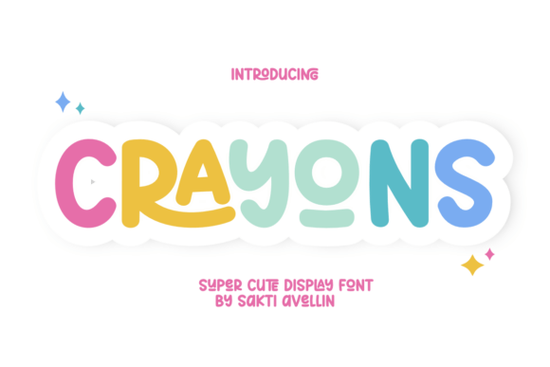
If you’ve ever wanted your designs to feel like they were drawn with a child’s crayon playful, warm, and full of personality the Crayons Font might be exactly what you’re looking for. It captures that nostalgic, hand-scribbled charm without sacrificing readability or versatility. Whether you're making birthday invitations, custom mugs, or printable wall art for a nursery, this font adds a soft, whimsical touch that feels both personal and polished.
Unlike rigid, overly stylized display fonts, Crayons strikes a balance between character and clarity. Its uneven strokes and subtle texture mimic real crayon marks on paper, giving your projects an organic, handmade vibe. That makes it especially useful for designers and small business owners creating products that need to feel approachable think baby shower decor, classroom printables, or cozy home goods like throw pillows and tote bags.
What kinds of projects work best with the Crayons Font?
This font shines in contexts where warmth and friendliness matter more than formality. Here are a few natural fits:
- Greeting cards and invitations – Especially for birthdays, baby showers, or casual celebrations.
- Print-on-demand merchandise – T-shirts, mugs, and keychains with uplifting quotes or simple illustrations pair beautifully with this style.
- Children’s room decor – Wall art, growth charts, or personalized name signs feel extra special with this handwritten aesthetic.
- Educational printables – Flashcards, reward charts, or classroom labels that need to feel inviting for young learners.
Because it’s a display font, Crayons isn’t meant for body text or long paragraphs. But for headlines, short phrases, or accent typography, it delivers just the right amount of playful energy.
How does it compare to other playful display fonts?
The key difference with Crayons is its specific crayon-like texture it doesn’t just look handwritten; it looks like it was made with wax on paper. That subtle detail can make your design feel more tactile and emotionally resonant, especially for audiences who value authenticity and simplicity.
Is it easy to use for beginners?
One tip: avoid using it over busy patterns or dark backgrounds unless you add a subtle outline or shadow. The delicate strokes can get lost without enough contrast.
Why choose a specialty font like this over free alternatives?
Free “crayon-style” fonts often lack consistent spacing, have limited character sets, or miss stylistic details like alternate glyphs or ligatures. Crayons, by contrast, is professionally designed with attention to how letters connect and flow. It includes uppercase and lowercase characters, numerals, punctuation, and often bonus swashes or extras depending on the version giving you more creative control without extra work.
Plus, when you license it through Creative Fabrica, you typically get commercial-use rights, which is essential if you’re selling your designs on Etsy, Redbubble, or at local markets.
Before you start, here’s a quick checklist to make the most of the Crayons Font:
- Use it for short text only headlines, names, quotes, or labels.
- Pair it with simple sans-serif fonts for balance (like Montserrat or Open Sans).
- Test print or mockup first some fine details may vary by printer or material.
- Combine with hand-drawn elements like doodles, stars, or clouds to enhance the theme.
With its heartfelt aesthetic and practical flexibility, the Crayons Font is a reliable choice for anyone wanting to add gentle, joyful energy to their creative work without overcomplicating the process.